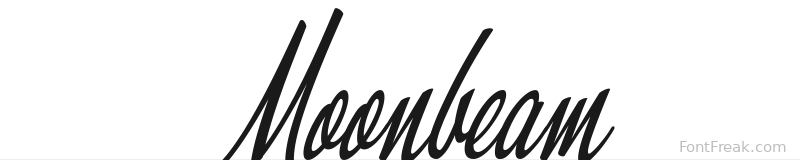
Moonbeam
Moonbeam is a captivating script font designed by Billy Argel Fonts, known for its elegant and fluid lines that evoke a sense of whimsy and charm. This font falls under the script category, characterized by its seamless cursive style that mimics the natural flow of handwriting. The strokes exhibit a moderate contrast, with gentle thickening and thinning that adds a touch of sophistication. The spacing is thoughtfully balanced, allowing for smooth readability while maintaining an artistic flair. Decorative elements, such as swirls and loops, enhance the font's visual appeal, making it an excellent choice for creative projects.
Ideal use cases for the Moonbeam font include wedding invitations, where its romantic style can beautifully convey heartfelt messages. It also works wonderfully for movie posters, lending an inviting aura that draws viewers in. Restaurant menus benefit from its charm, making dishes appear more enticing and sophisticated. Additionally, it’s perfect for branding materials, such as logos and business cards, giving a unique identity to small businesses. Content creators looking to enhance their social media graphics will find Moonbeam an effective way to capture attention.
What sets the Moonbeam font apart is its ability to convey emotion while remaining versatile across different mediums. Its enchanting style not only elevates designs but also connects with audiences on a personal level. For those interested in adding a touch of elegance to their projects, the Moonbeam font free download is an opportunity not to be missed.